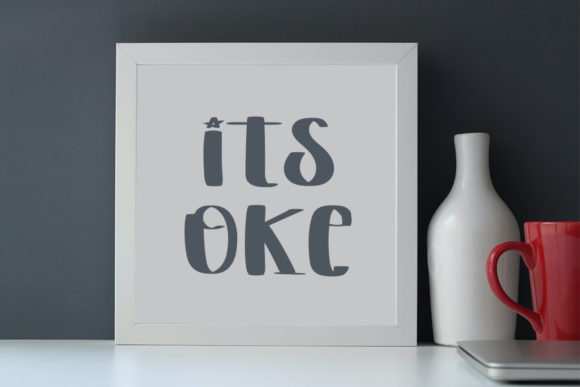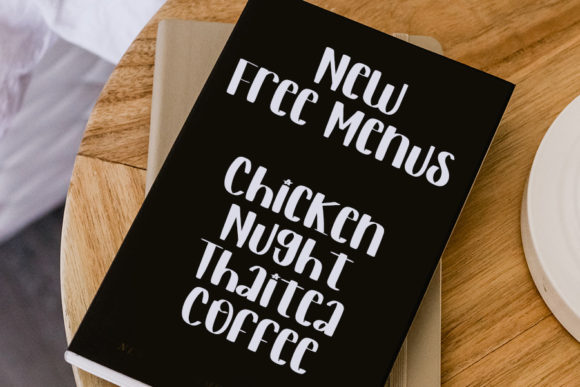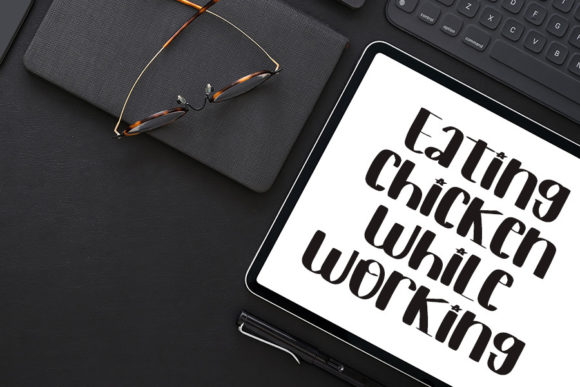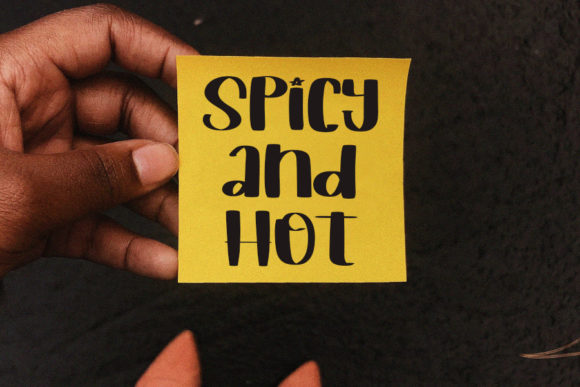
Introducing Grilled Chicken Font: The Perfect Addition to Your Design Toolbox
Are you tired of using the same old fonts in your designs? Look no further than Grilled Chicken Font, a bold and fun handwritten font that’s sure to add a touch of personality to any project. With its unique and eye-catching style, Grilled Chicken Font is perfect for designers and crafters looking to create stunning designs that stand out from the crowd.
What is Grilled Chicken Font?
Grilled Chicken Font is a carefully crafted handwritten font that’s designed to bring a sense of fun and playfulness to your designs. Its bold and adventurous style makes it perfect for use in a variety of projects, from branding and advertising to packaging and signage. Whether you’re looking to create a bold statement or add a touch of whimsy to your design, Grilled Chicken Font is the perfect choice.
Key Features of Grilled Chicken Font
- Bold and Fun Handwritten Style: Grilled Chicken Font features a bold and fun handwritten style that’s sure to grab attention.
- Unique and Eye-Catching: With its unique and eye-catching style, Grilled Chicken Font is perfect for designers and crafters looking to create stunning designs that stand out from the crowd.
- Perfect for a Variety of Projects: From branding and advertising to packaging and signage, Grilled Chicken Font is versatile enough to be used in a variety of projects.
- Easily Readable: Despite its bold style, Grilled Chicken Font is easily readable, making it perfect for use in body text as well as headlines.
How to Use Grilled Chicken Font in Your Designs
Grilled Chicken Font is incredibly easy to use and can be incorporated into your designs in a variety of ways. Here are a few ideas to get you started:
- Branding and Advertising: Use Grilled Chicken Font to create bold and eye-catching logos, ads, and marketing materials that are sure to grab attention.
- Packaging Design: Add a touch of personality to your product packaging with Grilled Chicken Font, perfect for food, beverage, and lifestyle brands.
- Signage and Displays: Use Grilled Chicken Font to create eye-catching signage and displays that are sure to stand out in a crowd.
- Digital Designs: Incorporate Grilled Chicken Font into your digital designs, including social media graphics, email headers, and website titles.
Tips for Getting the Most Out of Grilled Chicken Font
Here are a few tips for getting the most out of Grilled Chicken Font:
- Experiment with Different Colors: Grilled Chicken Font looks great in a variety of colors, so don’t be afraid to experiment and find the perfect hue for your design.
- Pair with Other Fonts: Grilled Chicken Font pairs well with a variety of other fonts, so try combining it with other fonts to create a unique and eye-catching design.
- Use it Sparingly: While Grilled Chicken Font is bold and eye-catching, it can be overwhelming if used too much. Use it sparingly to create a focal point in your design.